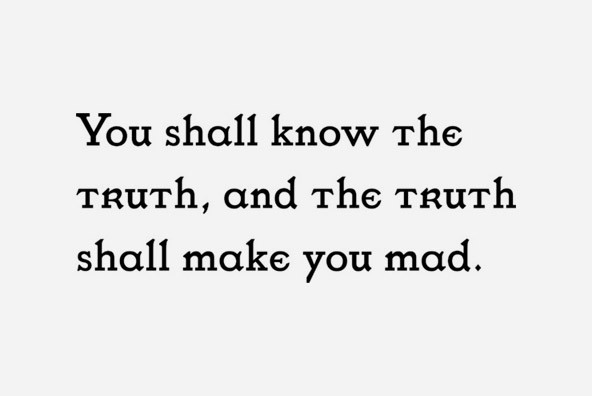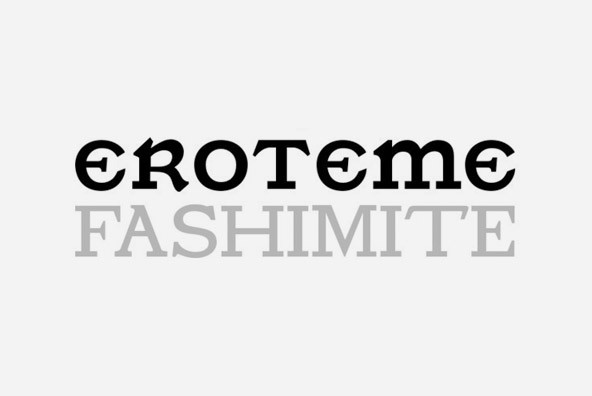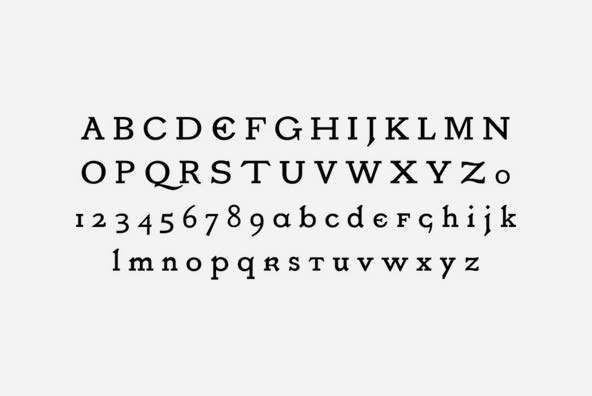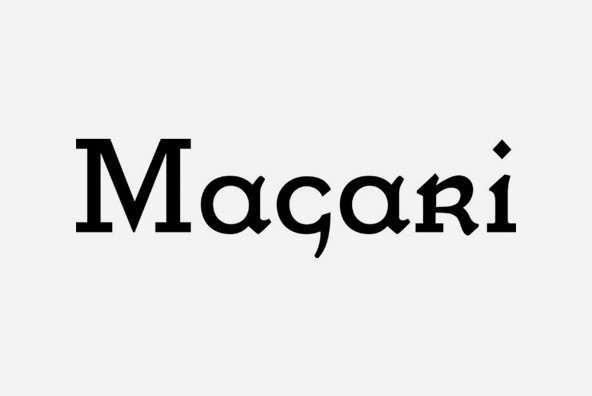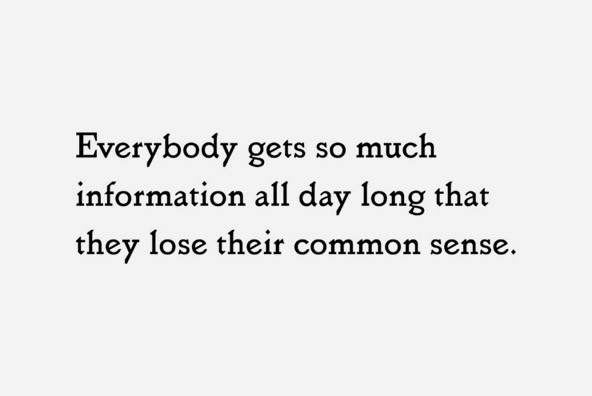
Vale Pro
Foundry: IHOF
The Vale font was originaly designed by Charles Ricketts, book designer, typographer and owner the owner of the arts and crafts-styled Vale press. The press is best known for the printing of the 39 volume 'Works of Shakespeare" (1900-1903). Vale Pro contains many extra OpenType features including a middle english feature to make any text "olde".